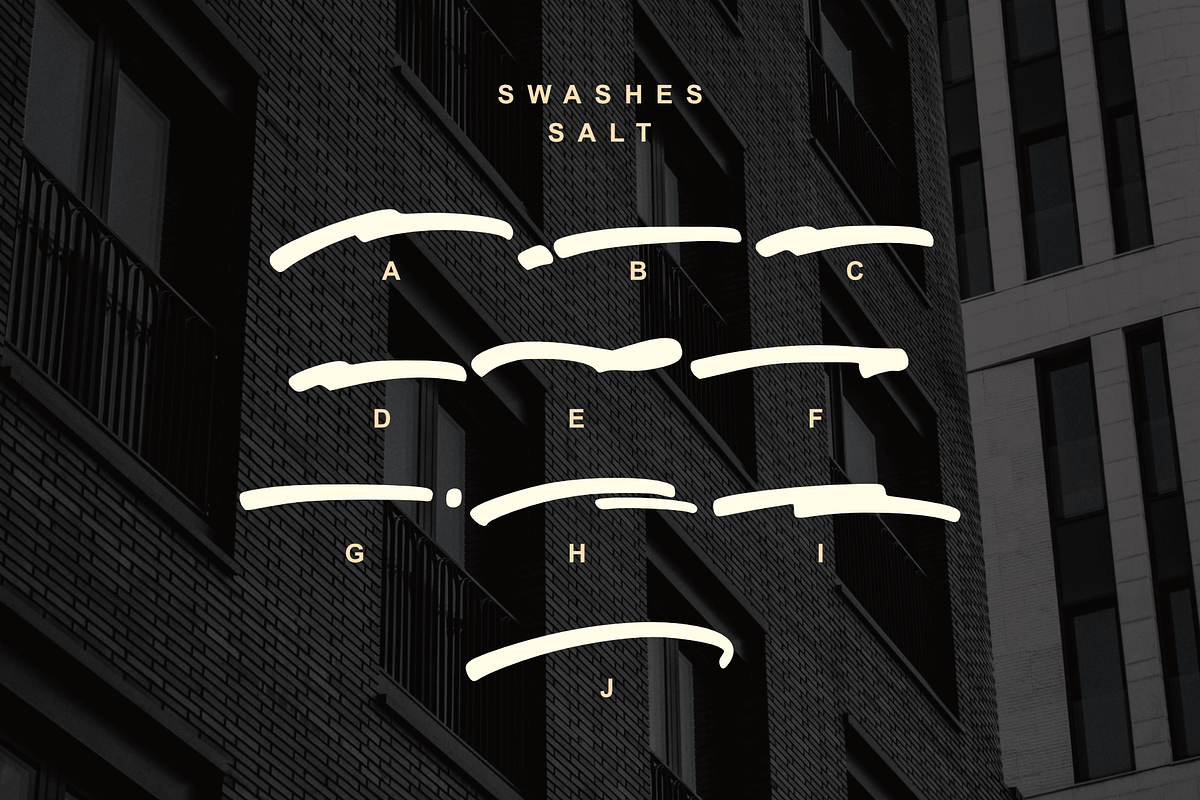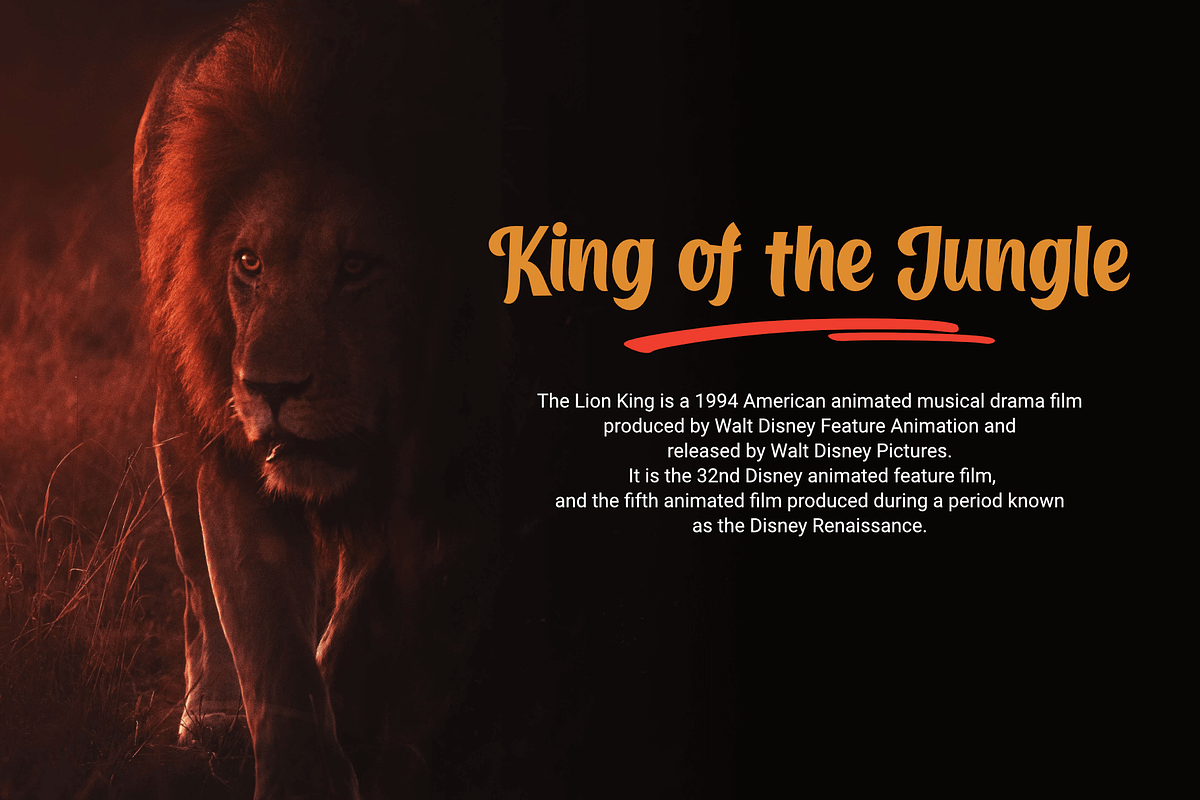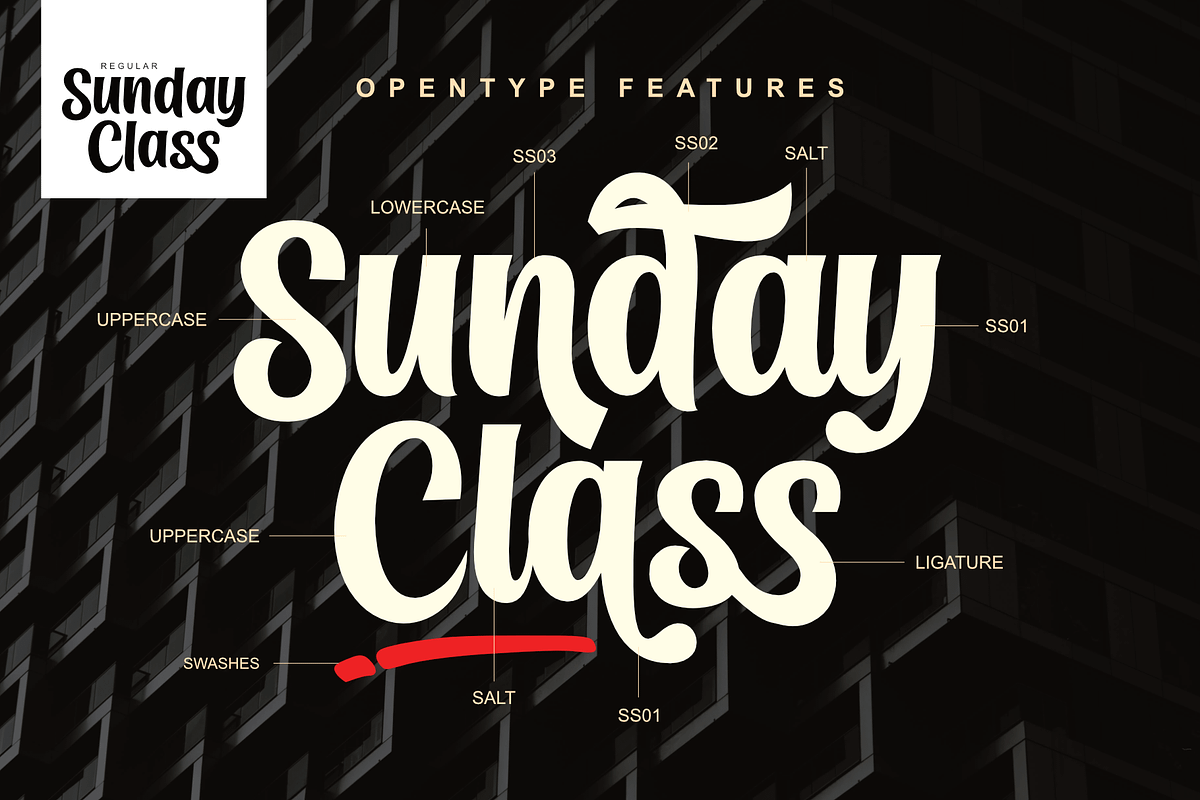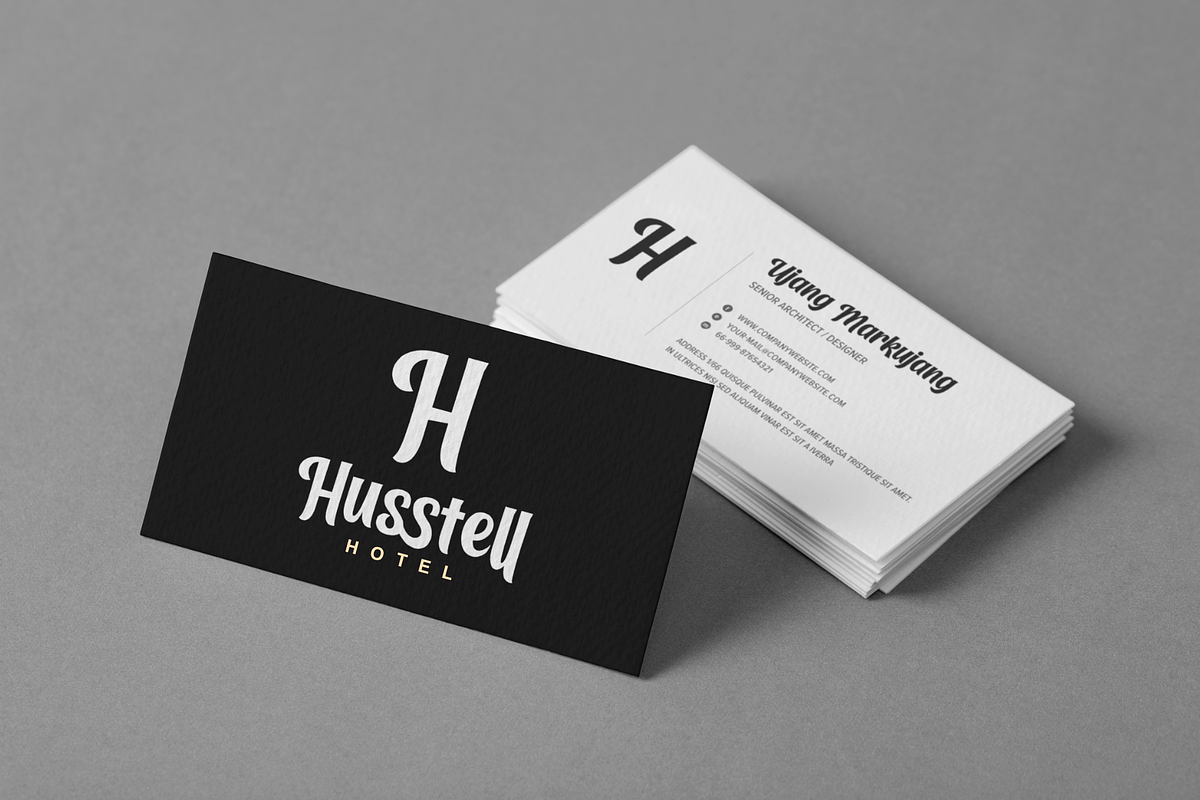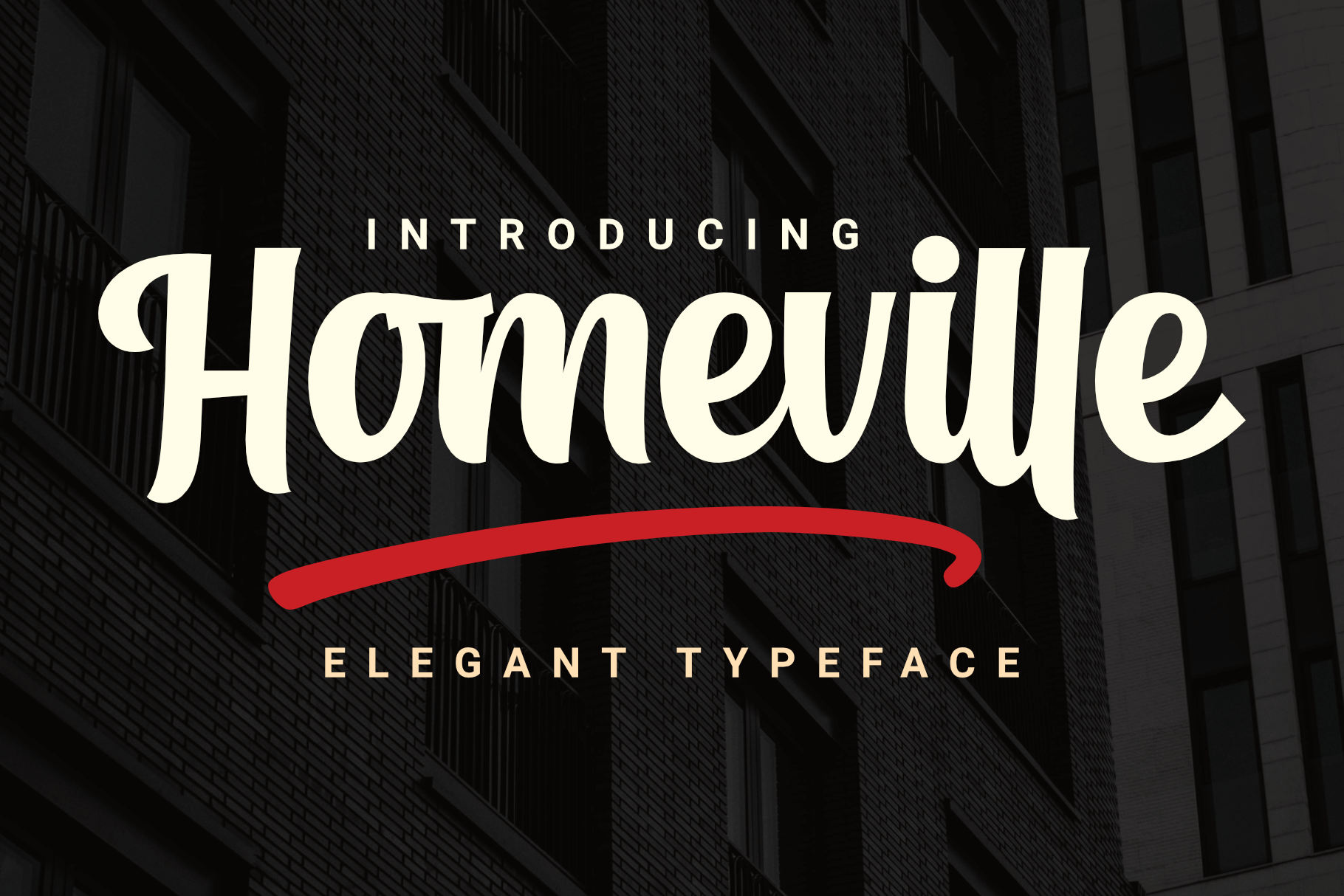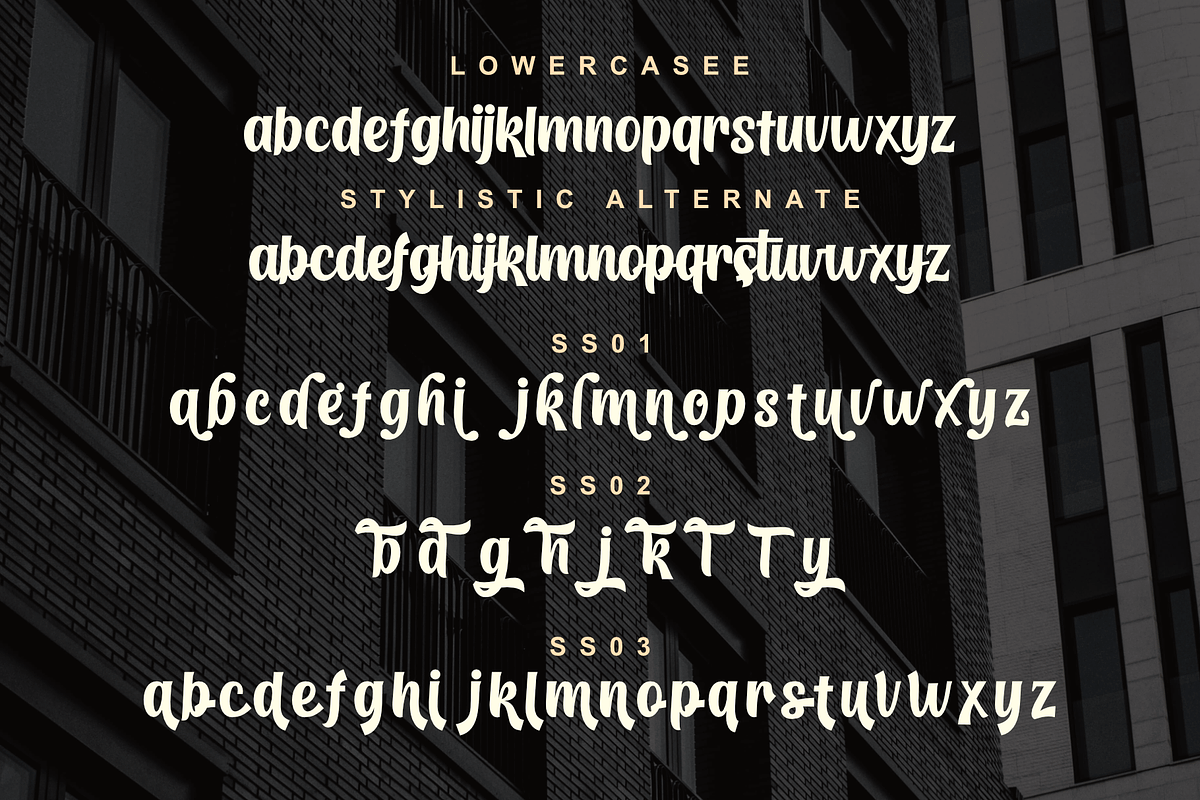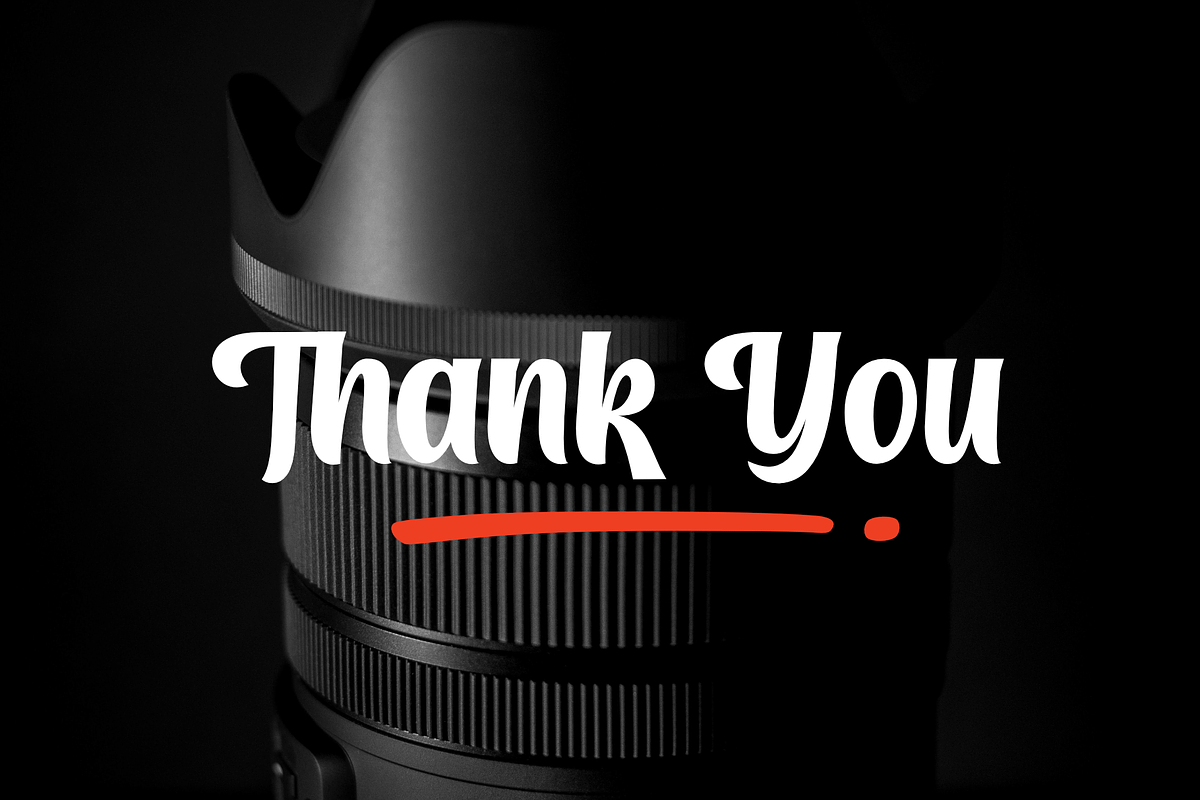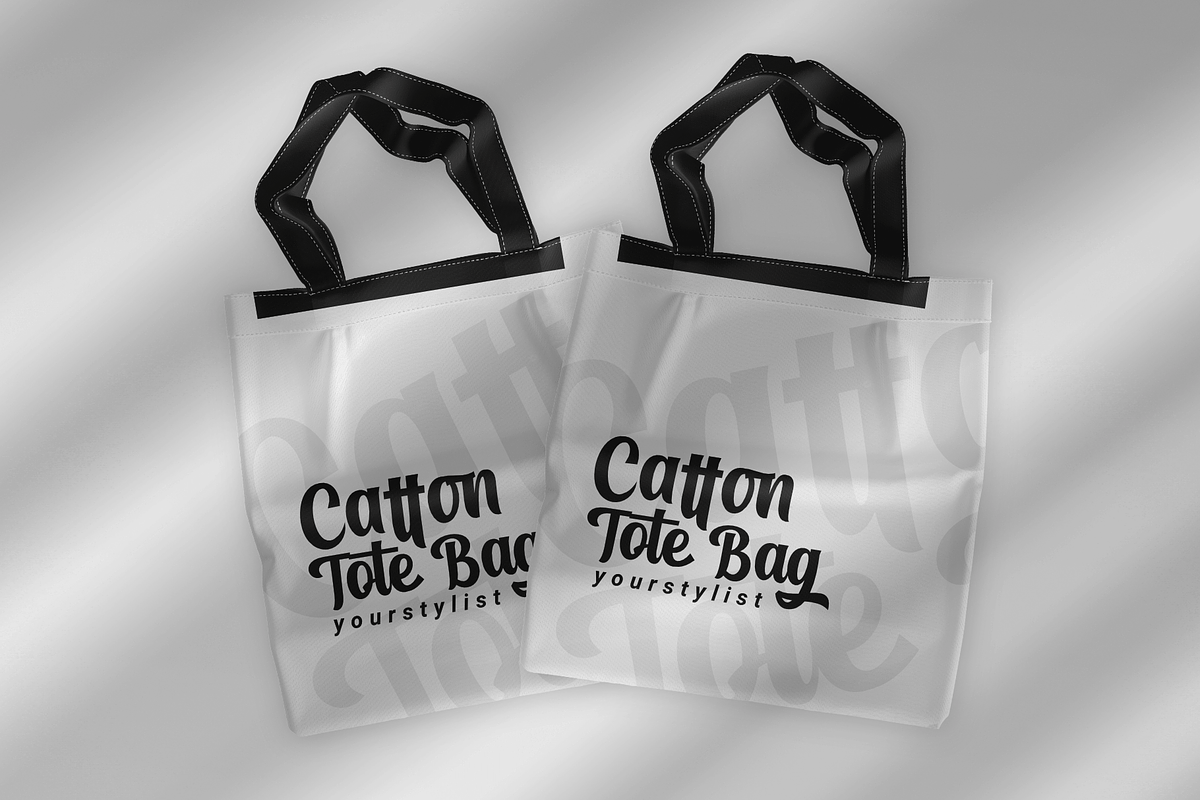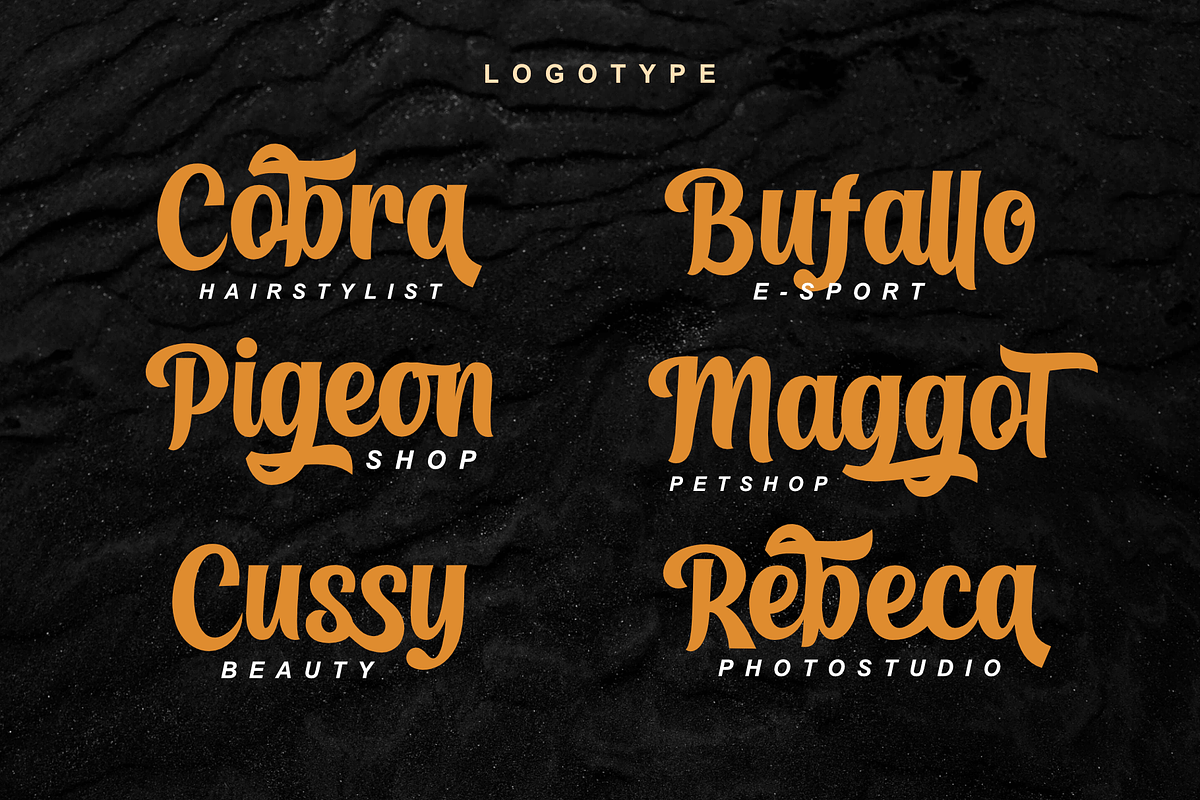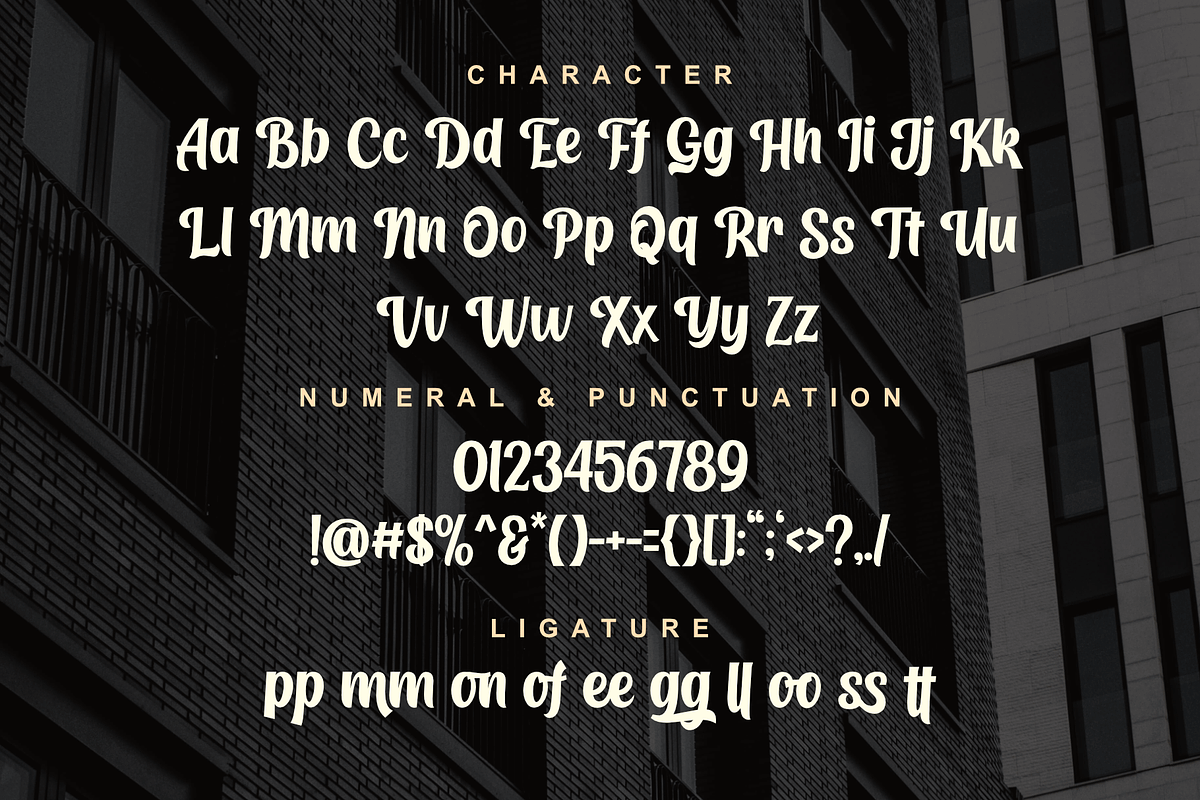
Homeville – Elegant Typeface
Homeville – Elegant Typeface is a font amazing this year. a font that will shake things up in the design world. Distinctive fonts and complemented by alternative styles will enhance your project.
Homeville is perfect for design, logos, social media, branding, advertising, product design, handwritten quotes, product packaging, headers, posters, merchandise, and other designs.
- Style Alternate
- SWSH
- Multilingual Accent